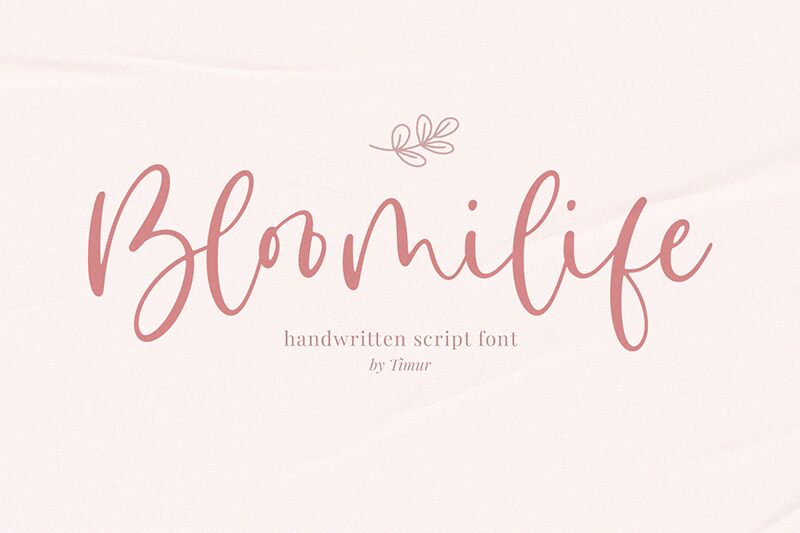
Bloomilife
Bloomilife, designed by Timur Type, is a handwritten font that exudes a sense of personal touch and elegance. With its fluid, graceful curves and natural variability in stroke thickness, this font mimics the spontaneity of ink on paper. Its stylish yet legible characters make it ideal for creating an intimate atmosphere in various design projects.
The aesthetic appeal of Bloomilife lies in its ability to convey warmth and authenticity, making it perfect for invitations, branding materials, and packaging where a handcrafted vibe is desired. Its charming appearance also lends itself well to editorial designs that require a touch of sophistication without sacrificing readability. Embrace the allure of Bloomilife for designs that require both personality and finesse.